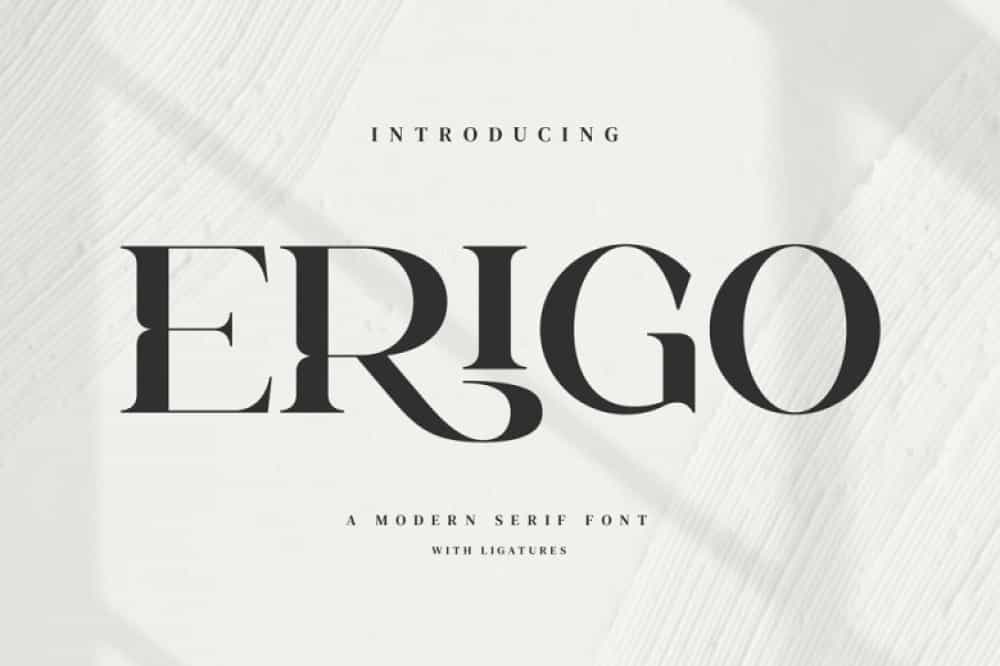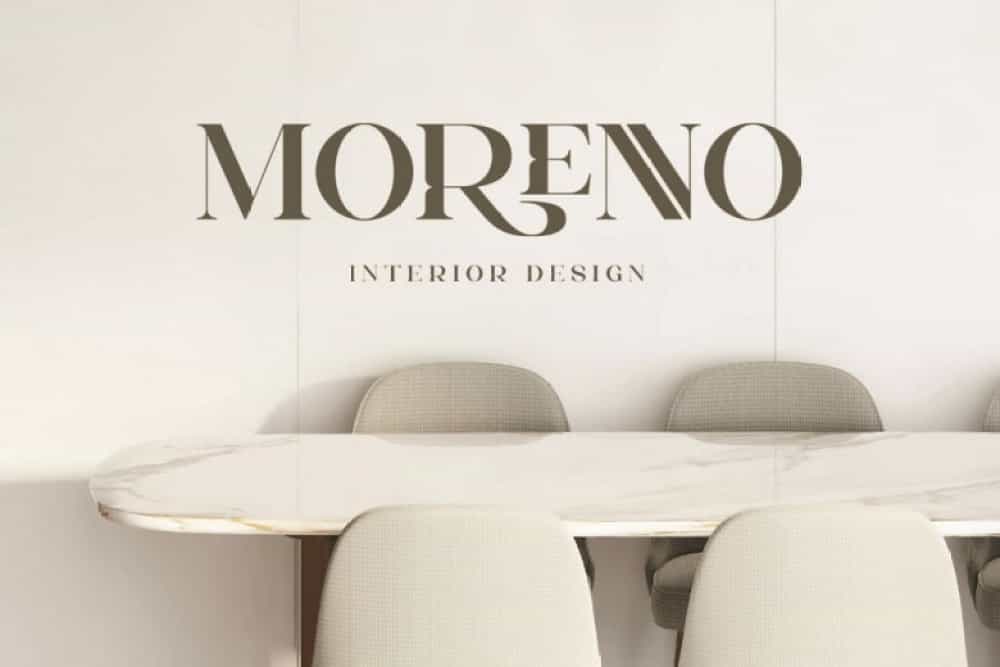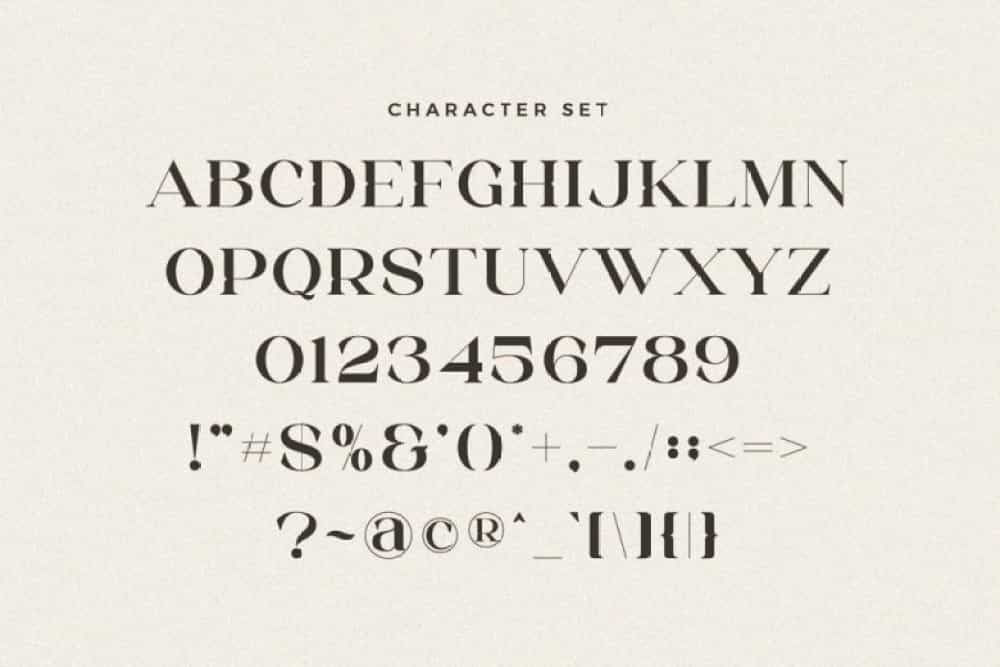
Erigo is a modern serif font designed with the influence of the famous minimalist logo suitable for use in designing of templates, brochures, videos, advertising branding, logos, etc.